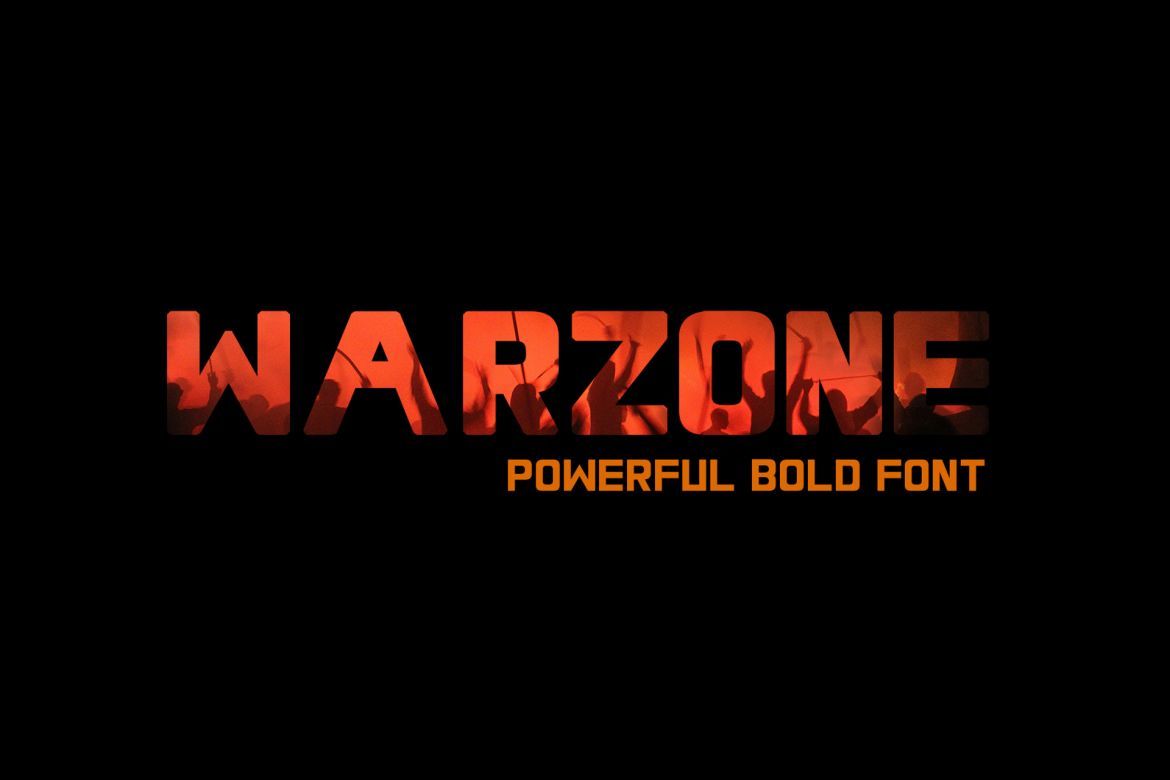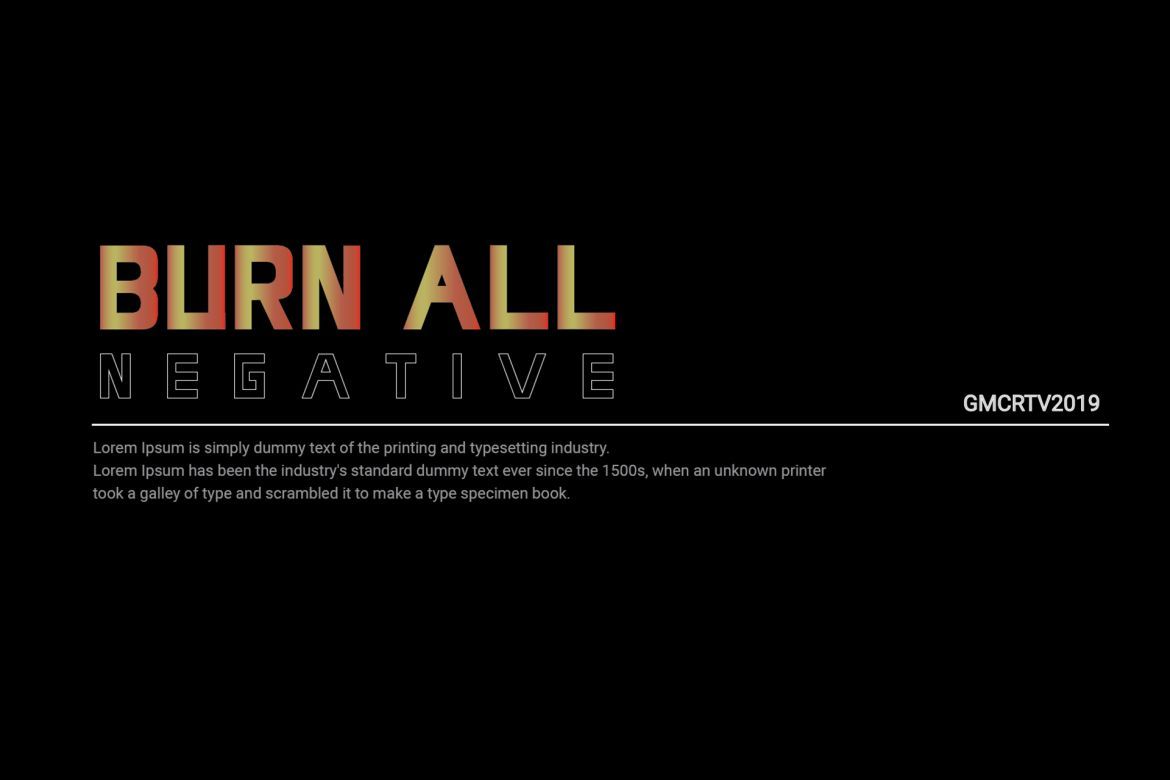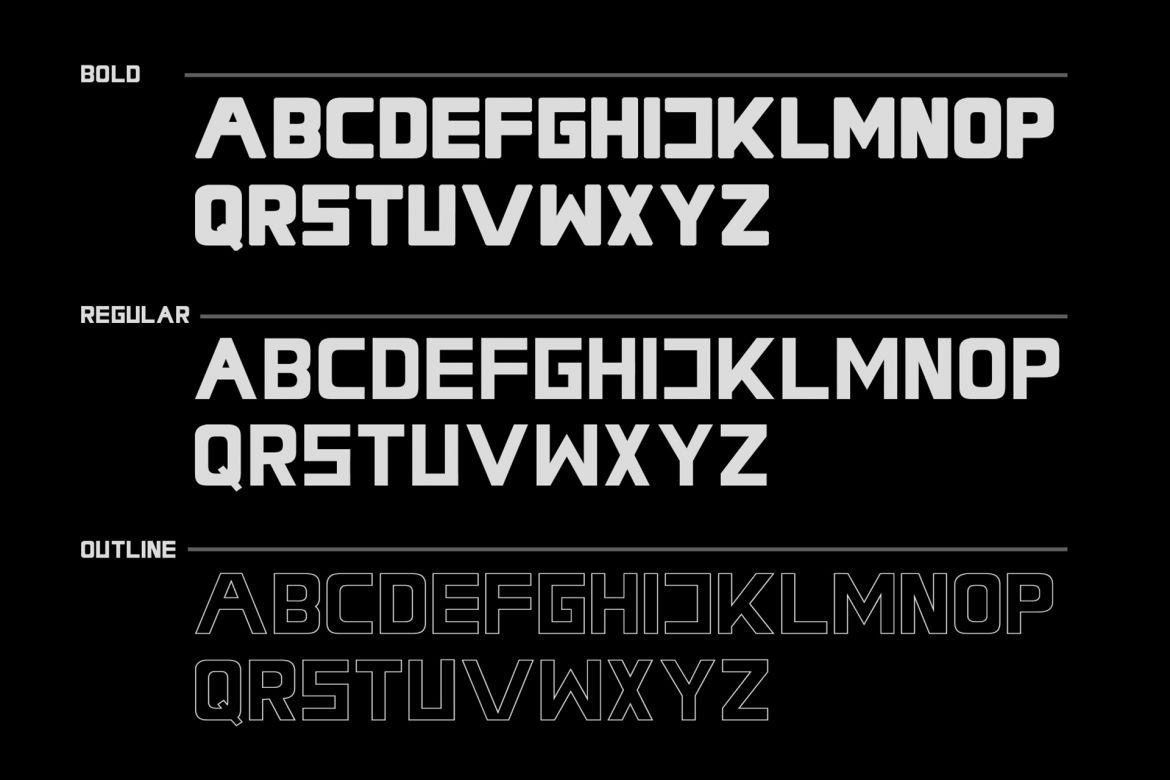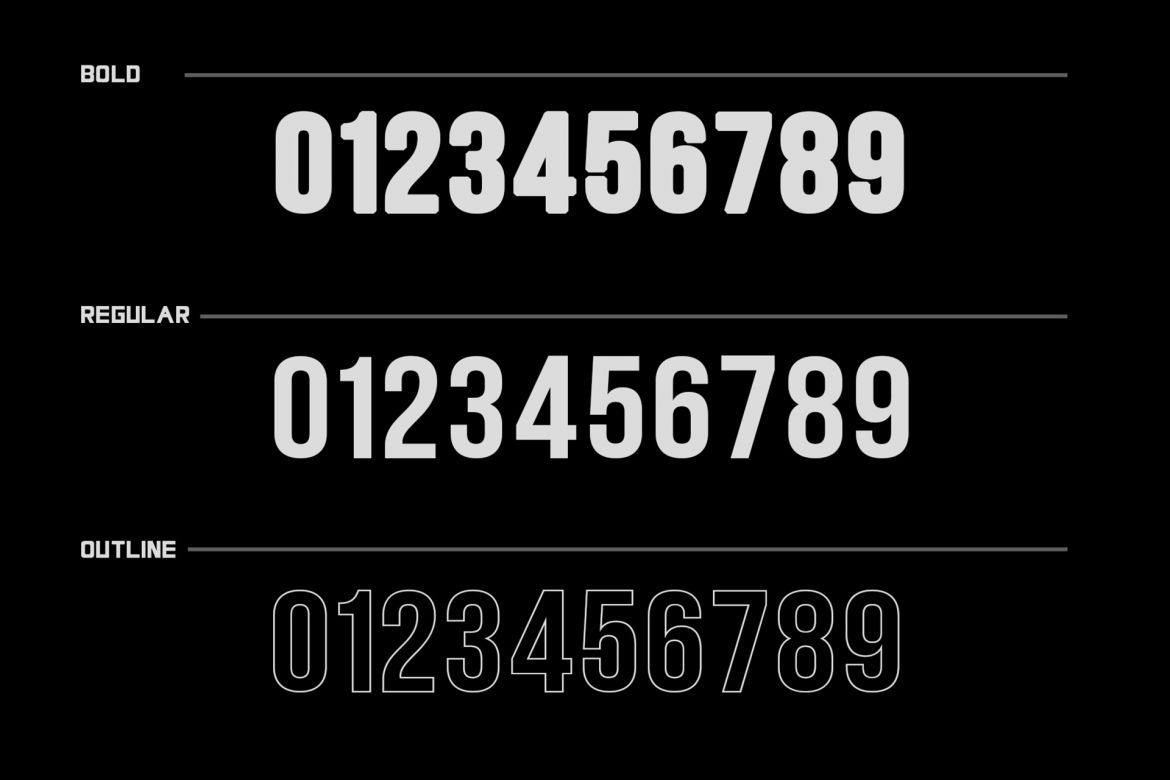
Lethal Font
-- Powerful / Elegant / Modern --
Lethal is a strong font family and sophisticated sans serif. Inspired by the superhero movie poster with a strongest look. it's perfect to use it with a metal effect especially for the bold one and the regular and outline can give you design more elegant.
Lethal includes all-caps fonts
Lethal Bold - Bold and commanding Lethal Regulat - A sturdy midground between light and bolds Lethal outline - More simple, thin but confident
USE Lethal works great in any branding, logos, magazines, films. The different weights give you full range to explore a whole host of applications, while the outlined fonts give a real modern feel to any project.
• bold font perfect for title / headline
• original hand drawn